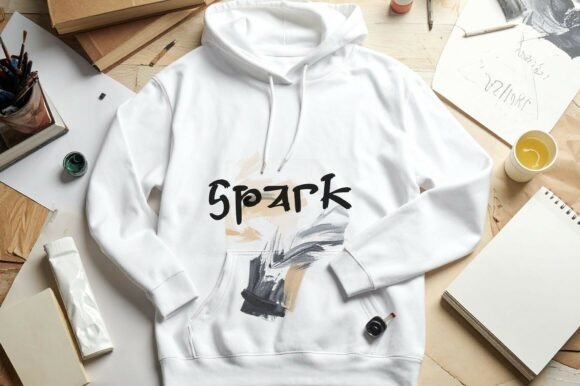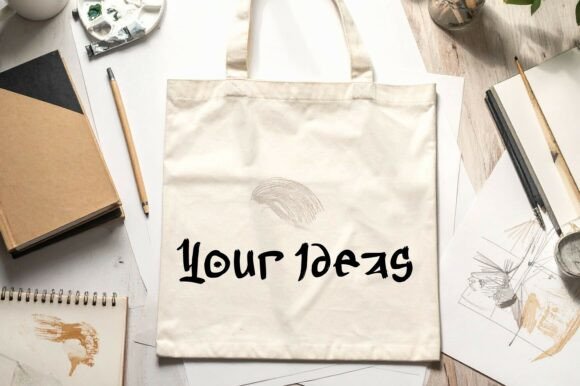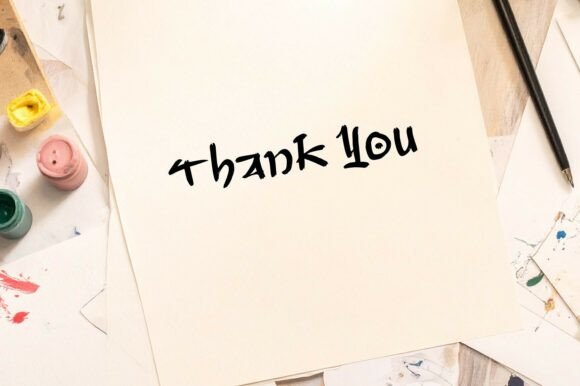
Discover the Vivacious Charm of Beppu Font: Unleash Joy and Creativity in Your Designs
In the world of typography, few fonts manage to capture the essence of joy and creativity as effortlessly as Beppu Font. This dynamic display typeface is a game-changer for designers and crafters looking to infuse their projects with a sense of happiness and fun. With its bold, delightfully unique characters and realistic brushstroke texture, Beppu Font is the perfect choice for inventive brands, kids’ merchandise, casual fashion items, and vibrant social media content.
The Handcrafted Appeal of Beppu Font
One of the standout features of Beppu Font is its handcrafted appeal. Each character is carefully crafted to showcase a bold, yet playful personality that is sure to capture the attention of your audience. The font’s realistic brushstroke texture adds a touch of authenticity, giving your designs a warm and inviting feel that’s hard to resist. Whether you’re working on a branding project, a children’s product, or a social media campaign, Beppu Font is sure to bring a smile to your audience’s faces.
Perfect for Inventive Brands and Kids’ Merchandise
Beppu Font is particularly well-suited for inventive brands and kids’ merchandise. Its playful and imaginative vibe makes it a natural fit for products and services that cater to children or appeal to a younger audience. From toy packaging to kids’ apparel, Beppu Font is sure to add a touch of whimsy and fun to your designs. For brands looking to establish a playful and creative identity, Beppu Font is an excellent choice.
Adding a Pop of Personality to Casual Fashion Items
Beppu Font is not just limited to kids’ merchandise and inventive brands. Its engaging character also makes it perfect for casual fashion items such as t-shirts, hats, and bags. Add a touch of personality to your fashion designs with Beppu Font’s bold and playful typography. Whether you’re creating a statement piece or a everyday essential, Beppu Font is sure to make your designs stand out from the crowd.
Elevate Your Social Media Content with Beppu Font
In today’s digital age, social media content is more important than ever. With Beppu Font, you can add a touch of joy and creativity to your social media posts and stories. Its vibrant and playful personality is sure to capture the attention of your followers and leave a lasting impression. Use Beppu Font to create eye-catching graphics, animations, and videos that showcase your brand’s personality and style.
The Benefits of Using Beppu Font
So why choose Beppu Font for your next project? Here are just a few benefits of using this dynamic display typeface:
- Unique and eye-catching typography: Beppu Font’s bold and playful characters are sure to capture the attention of your audience.
- Handcrafted appeal: Each character is carefully crafted to showcase a realistic brushstroke texture and a warm, inviting feel.
- Perfect for creative brands and kids’ merchandise: Beppu Font’s playful and imaginative vibe makes it a natural fit for products and services that cater to children or appeal to a younger audience.
- Versatile and adaptable: Use Beppu Font for a wide range of projects, from branding and packaging to social media content and fashion designs.
In conclusion, Beppu Font is a dynamic display typeface that is sure to bring joy and creativity to your designs. With its bold, delightfully unique characters and realistic brushstroke texture, Beppu Font is the perfect choice for inventive brands, kids’ merchandise, casual fashion items, and vibrant social media content. Whether you’re a designer, crafter, or brand owner, Beppu Font is an excellent choice for any project that aims to convey a sense of happiness, fun, and distinctive artistry.